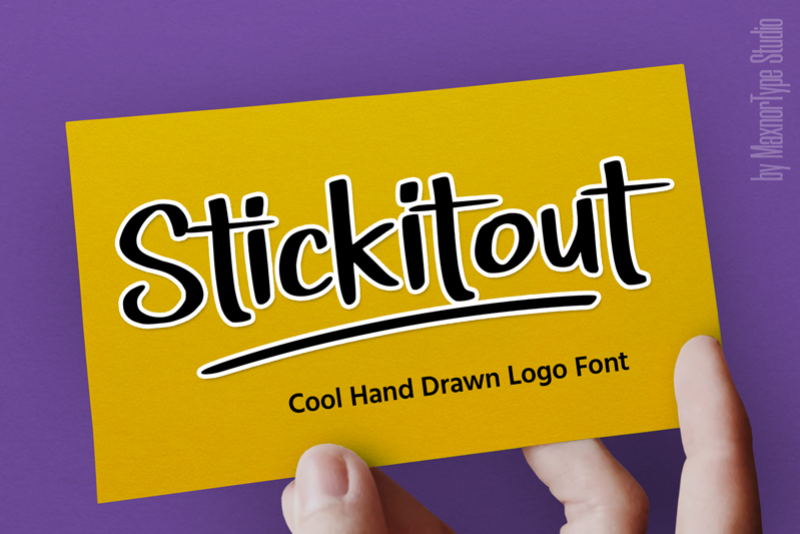
Stickitout - Hand Drawn Logo Font
Stickitout font is a cool hand drawn typeface. Stickitout will make your design standout and cool. It is great for various projects, like logo, branding, poster, banner, stationery, advertisement, packaging, product design, label, etc.
Stickitout contains standard characters, lowercases, uppercases, numbers, punctuation, international characters, and ligatures.